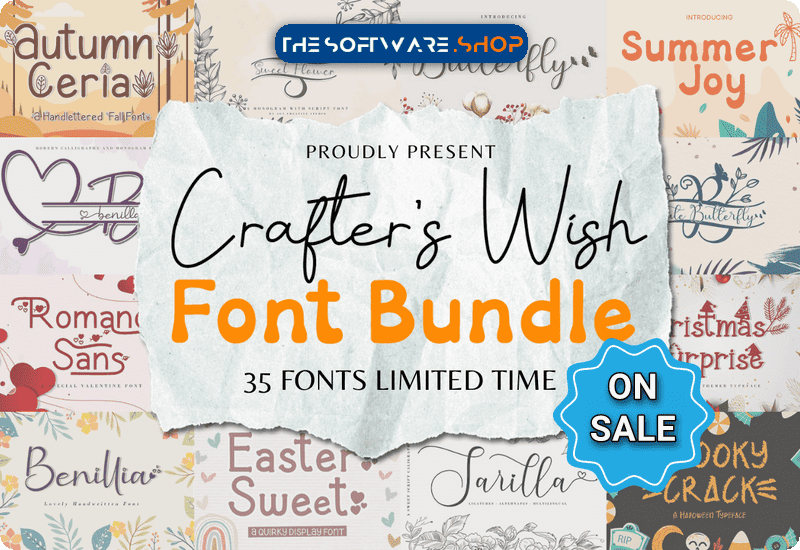
In the world of design and crafting, fonts play a pivotal role in conveying emotions, themes, and messages. The right font choice can transform a creative project from ordinary to extraordinary, leaving a lasting impression on the audience. The Crafter’s Wish Font Bundle is a treasure trove for designers, crafters, and artists, offering a collection of 35 modern and playful fonts. The best part? It’s now available for FREE!
The Crafter’s Wish Font Bundle boasts an extensive assortment of 35 carefully curated fonts, each with its own unique charm and style. From elegant scripts to decorative serifs, this bundle covers a wide spectrum of design needs.
These fonts are not only visually appealing but also highly functional, making them perfect for various creative projects. Most fonts in this bundle are PUA encoded, making it a breeze to access all the special characters and glyphs, elevating the level of creativity and personalization.
Creative Possibilities with the Font Bundle
The versatility of the Crafter’s Wish Font Bundle opens up an array of creative possibilities. Imagine designing enchanting greeting cards adorned with elegant calligraphy or crafting eye-catching posters that make a statement. Whether it’s designing invitations for a special event, creating captivating labels for products, or adding a personal touch to t-shirt prints, this font bundle has something to offer for every project. Its diverse selection of fonts ensures that no matter the theme or occasion, you’ll find the perfect typographic match to bring your vision to life.